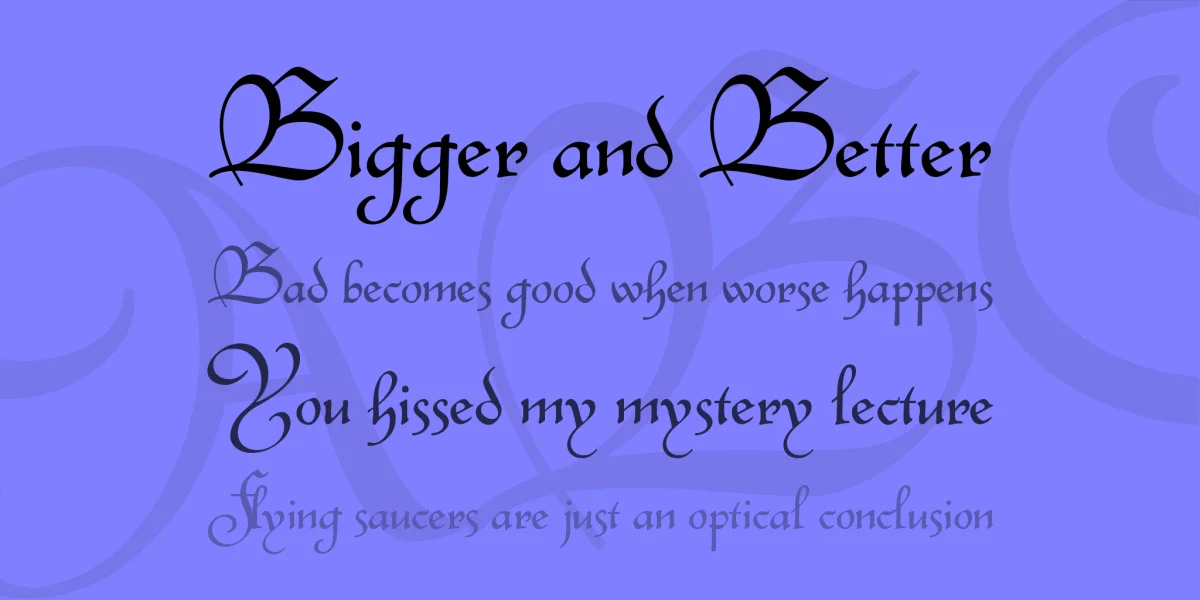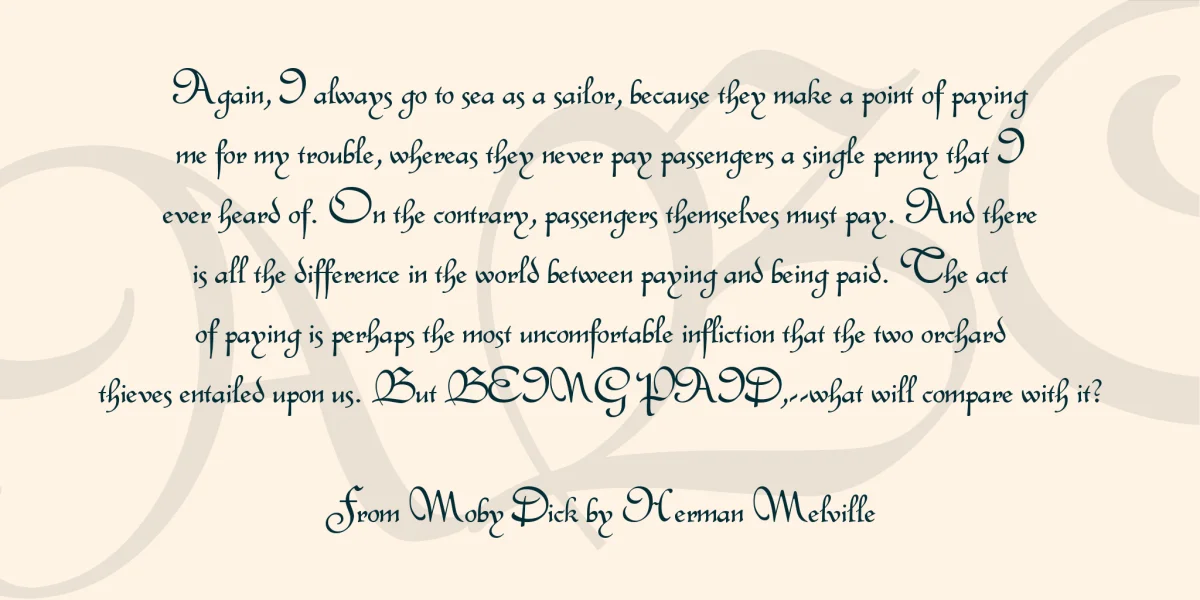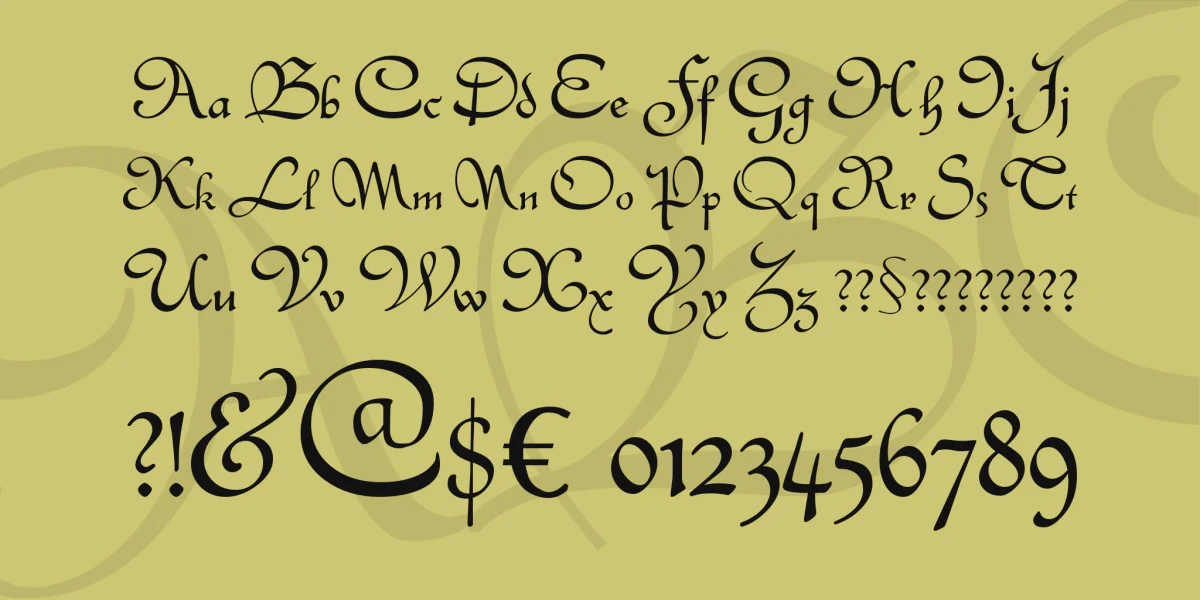
In 1557 the French engraver Robert Granjon developped a typeface called "Civilité". Its characters imitate French cursiva letters of the Renaissance. Stephen G. Moye published his take on that face in 1991 as a public domain font called "Civitype" It contained a number of swash letters as well, among others an s with a flourish, in the slot for the German double s (ß).Since the font was PD I had no scruples to design my own 'ß'. Now the flourish s had to go elsewhere. That's how it all started. I discovered that the character combination 'ld' did not work properly, so I made another 'd'. Thinking that the swash 'w' did not look good in the middle of a word (more common in German than in English), I cut off the swash and placed the ornamented character into another slot. And so on.To cut a long story short: Now there are many character variants in odd places where they don't really belong. But reachable through the Windows character map which was sometimes the only way of using extended characters back then. In particular, I used the accented uppercase vowels. I did not change that atrocity when I made a revision of my font collection in 2013. Sorry about that, but you get what you paid for ;-)